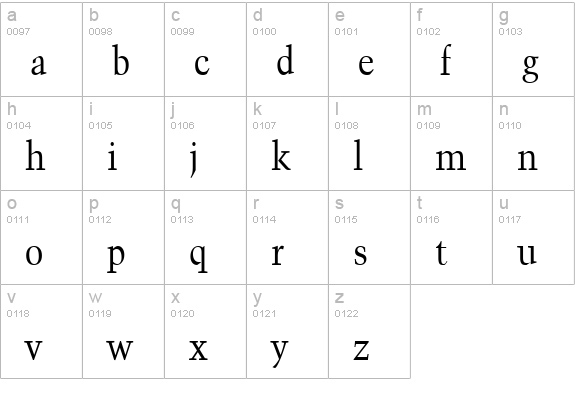
Congo-Condensed Normal is the standard, neutral, condensed-width variant in the Congo typeface family \xE2\x80\x94 well suited to general body text, paragraphs, and standard typographic work.
Congo-Condensed Normal is a sleek and modern font designed for various design projects. Its condensed style adds a touch of sophistication and elegance to any text. This versatile typeface is perfect for headlines, titles, and branding materials. With its clean lines and balanced proportions, Congo-Condensed Normal exudes professionalism and style. The best part is that Congo-Condensed Normal is available for free download at FontsMarket.com. This means you can easily access this high-quality font and use it in your projects without any cost. Whether you're working on a print design, web project, or any other creative endeavor, Congo-Condensed Normal is a fantastic choice that will elevate your work to the next level. Download it now and start creating stunning designs with this beautiful and freely available font.